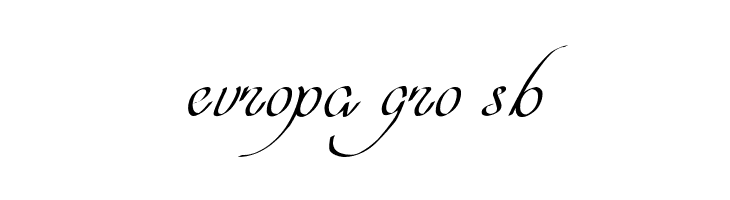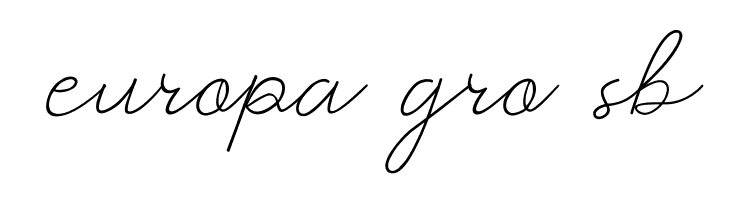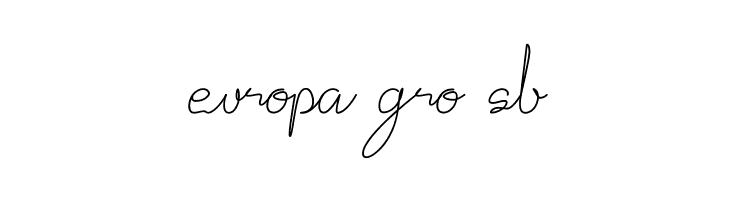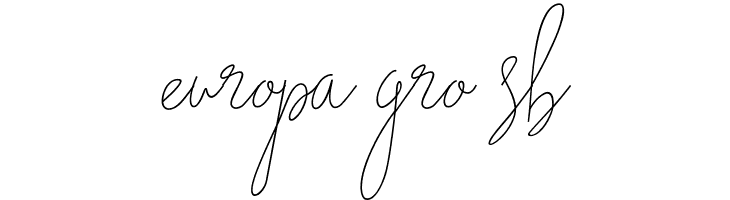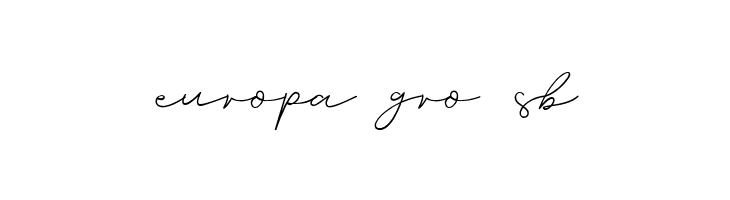
( JBFoundry - Jean Boyault - jean.boyault.pagesperso-orange.fr/ )
A delicate and elegant script font with flowing, graceful strokes.
( JBFoundry - Jean Boyault - jean.boyault.pagesperso-orange.fr/ )
A delicate, elegant font with thin strokes and a mix of geometric and cursive styles.
( Jair Andrade )
An elegant script font with fluid, cursive strokes and delicate flourishes.
( Just Font You - Ian Irwan Wismoyo - justfontyou.com/ )
An elegant and sophisticated cursive script font with flowing, delicate strokes.
( Konstantine Studio - konstantinestudio.com/ )
A delicate and elegant handwritten font with fluid, natural strokes.
( Le Parte Studio )
A delicate and elegant script font with smooth, flowing lines and connected characters.
( Makashi - Maqsum Kamil )
A delicate and elegant script font with flowing, cursive letterforms.
( Malindo Creative - www.creativefabrica.com/ref/112799/ )
A delicate, flowing script font with a handwritten style.
( Malindo Creative - www.creativefabrica.com/ref/112799/ )
A delicate, flowing script font with elegant, elongated letterforms.
( Mas Anis Studio - Naufal Anis - creativemarket.com/naufalans?u=naufalans )
A delicate and elegant handwritten font with flowing, interconnected letterforms.